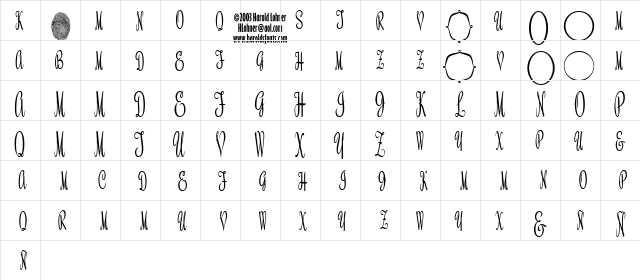
HMRoselyn Script Monograms DEMO Regular
Design Context for HMRoselyn Script Monograms DEMO Typeface
HMRoselyn Script Monograms DEMO brings a calligraphic fluidity to the page — its connecting strokes and expressive curves give it an unmistakably human quality.